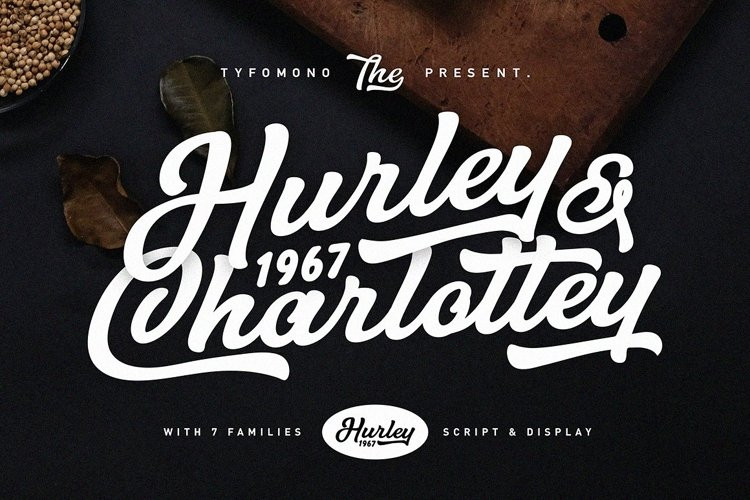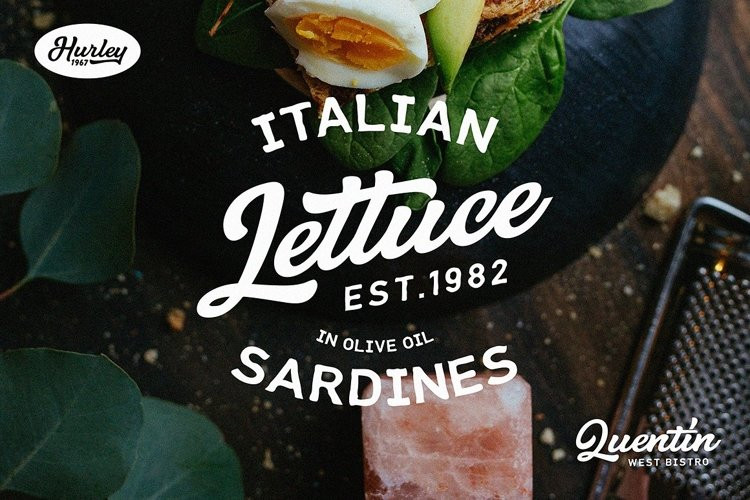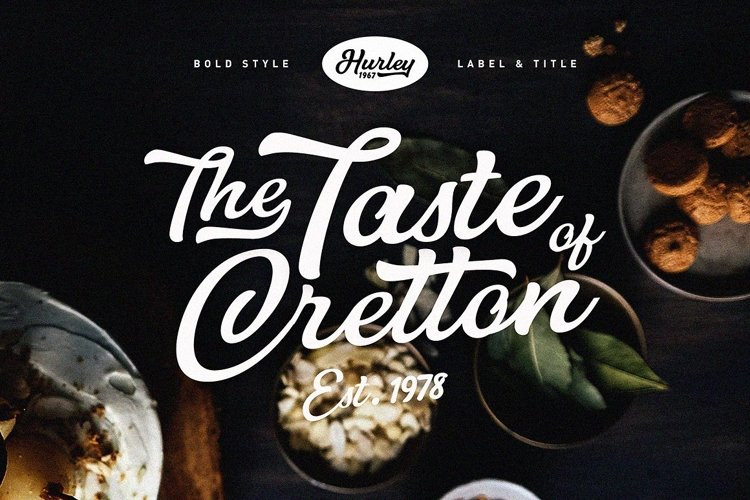
Hurley 1967 Font
Hurley 1967 FontHurley 1967 is a bold script, with a clean lines and smooth curve combined with the beautiful features! Simply amazing fonts comes with the 7 styles. Hurley 1967 have a bunch of styles as a families plus a premade logo designed using the fonts.